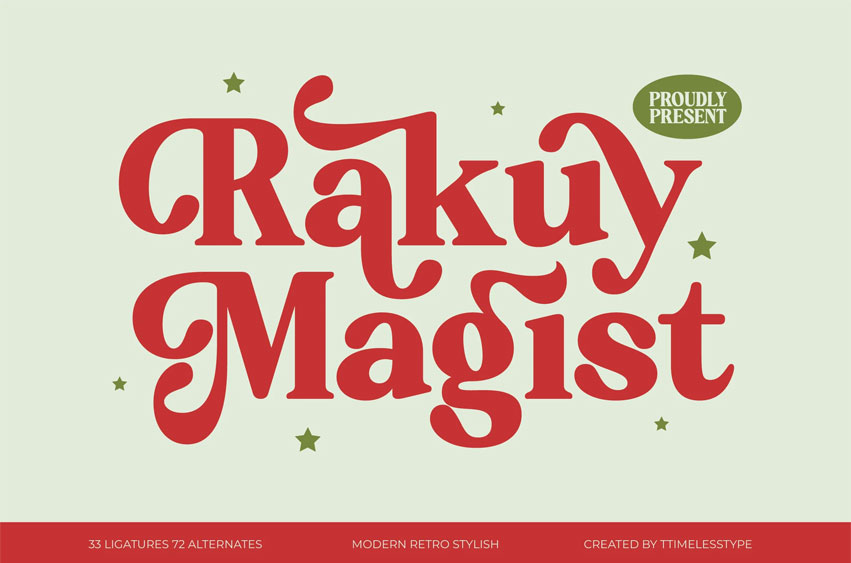
Rakuy Magist Font
Rakuy Magist Font Modern Retro Stylish , Rakuy Magist is a modern retro serif display font featuring playful curves, bold letterforms, and charming decorative swashes that instantly bring warmth and personality to any design. Inspired by vintage typography with a fresh contemporary twist, this font is perfect for holiday themes, branding, packaging, posters, social media graphics, children’s products, invitations, and cheerful lifestyle projects.
With its rich alternates and expressive ligatures, Rakuy Magist allows designers to create fun, lively, and highly memorable layouts with ease.